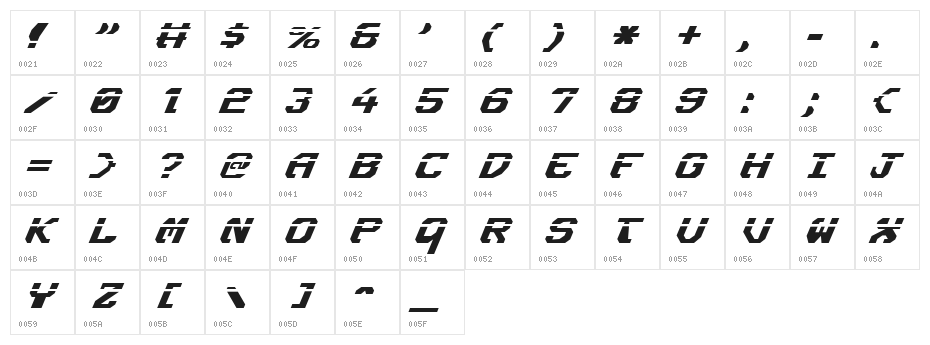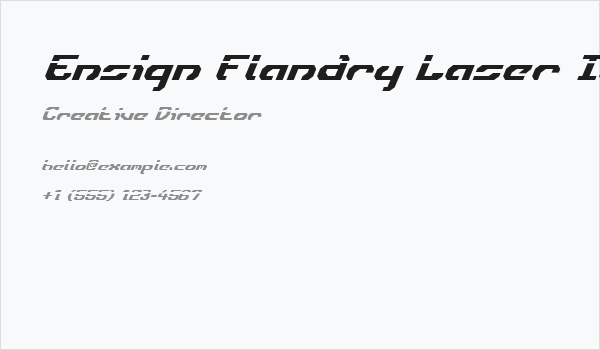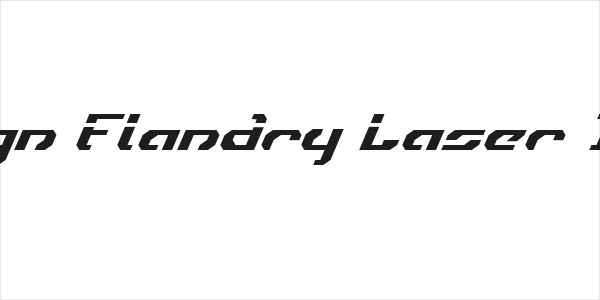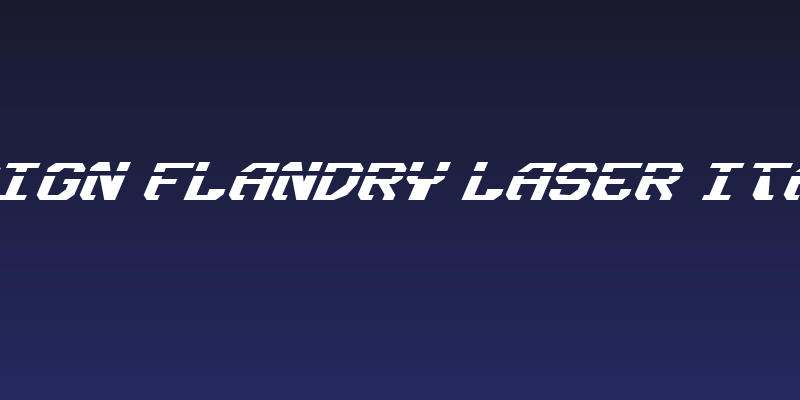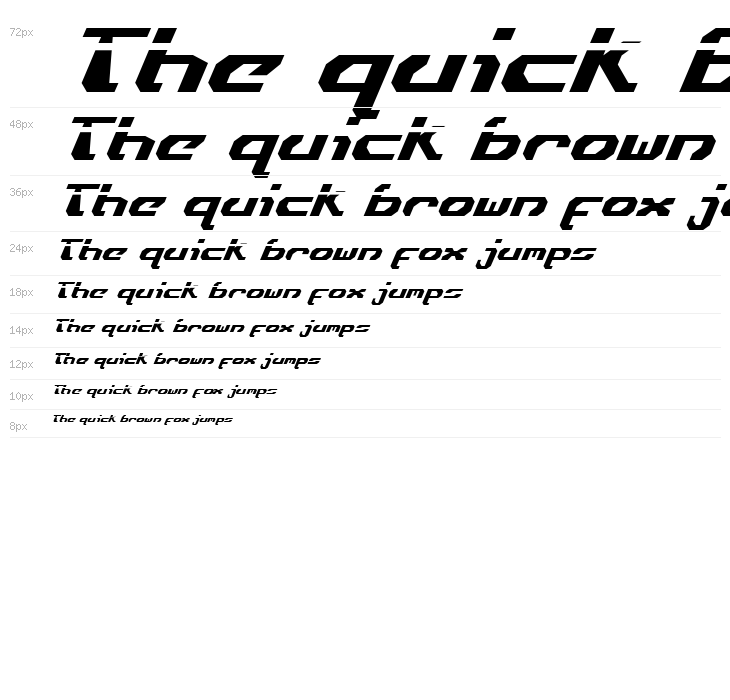
Ensign Flandry Laser Italic Font
Ensign Flandry Laser Italic Description
This font features a futuristic and angular design with a distinct italic slant, giving it a dynamic and energetic appearance. The characters are bold and geometric, with sharp edges and a consistent stroke width that conveys a sense of speed and modernity. The uppercase and lowercase letters maintain a cohesive style, while the numerals and special characters complement the overall aesthetic. The font's unique style makes it suitable for projects that require a bold and impactful visual statement.
| Overall Style | Futuristic, Dynamic |
| Proposed Projects | Ideal for sci-fi themed designs, video game titles, technology branding, and dynamic posters. |